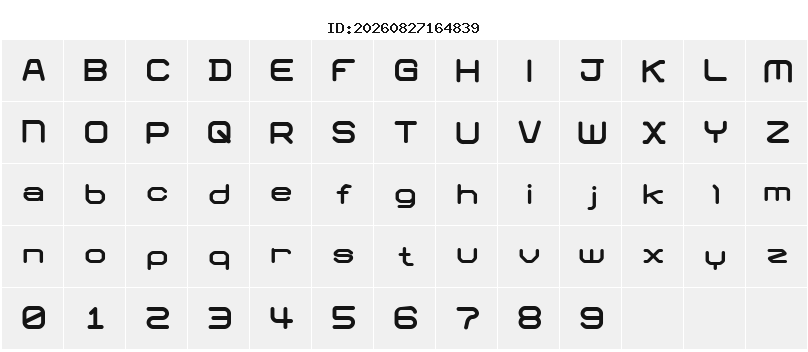
01 DigitGraphics Preview
• Font Name: 01 DigitGraphics
• Full Font Name: 01 DigitGraphics
• PostScript Name: 01 DigitGraphics
• Character Count: 93
About 01 DigitGraphics.ttf
01 DigitGraphics.ttf is a modern, elegant sans-serif font designed for ultimate readability and visual harmony. Perfect for branding, headlines, web design, and print materials.